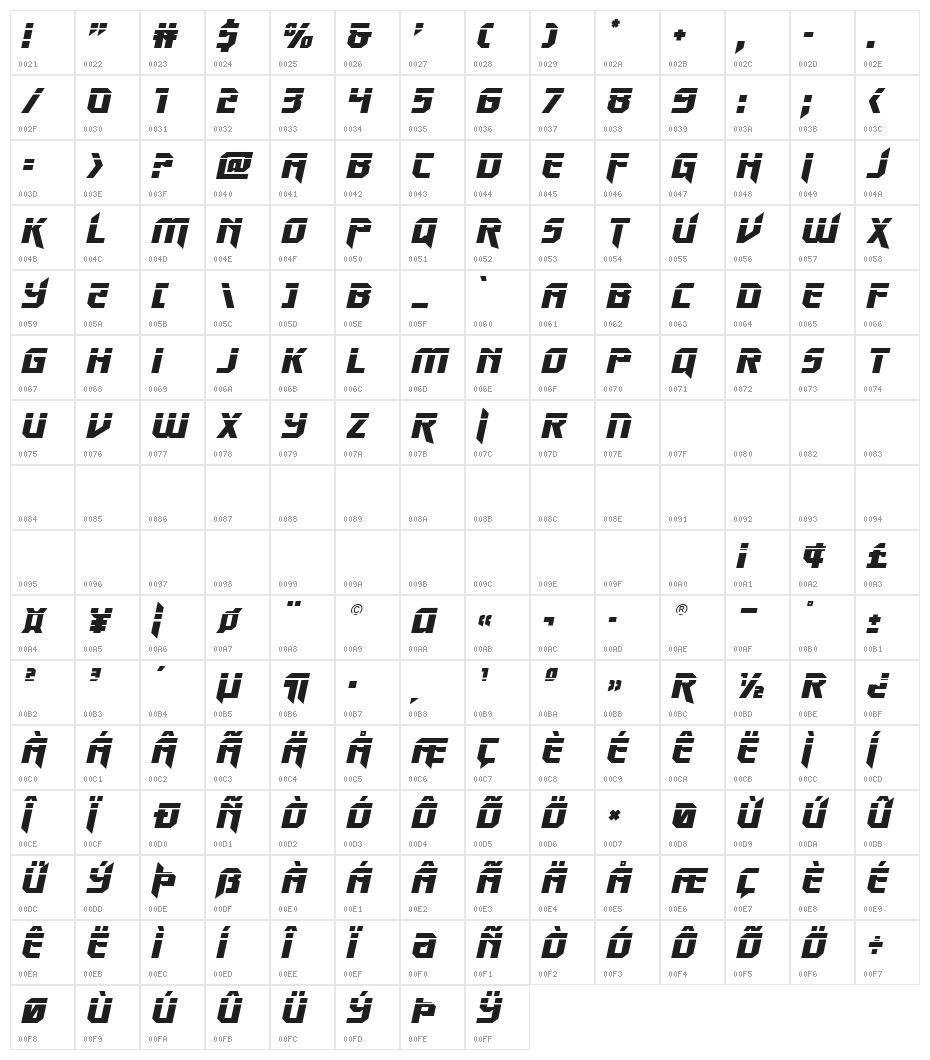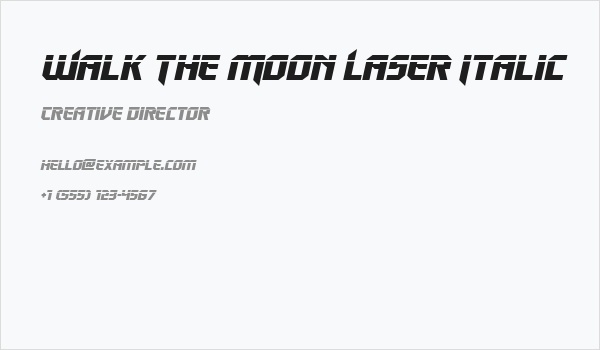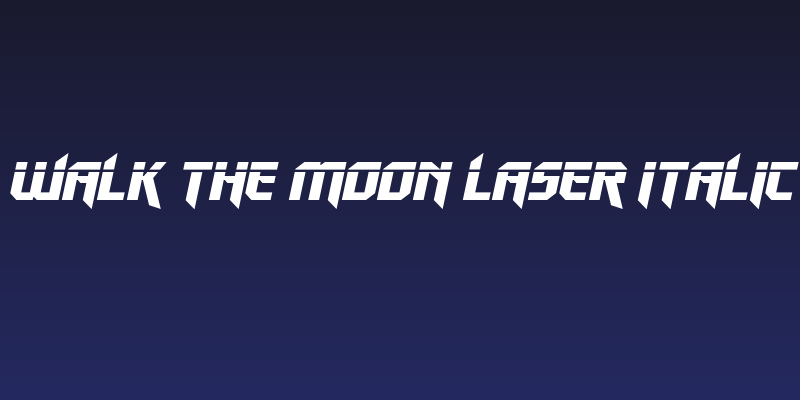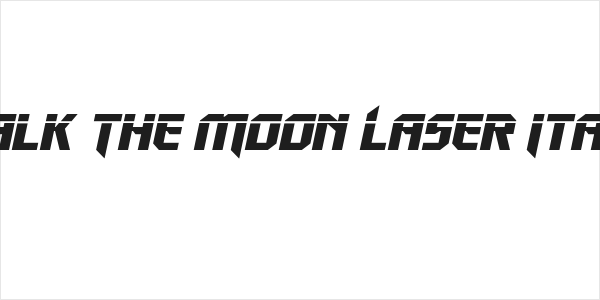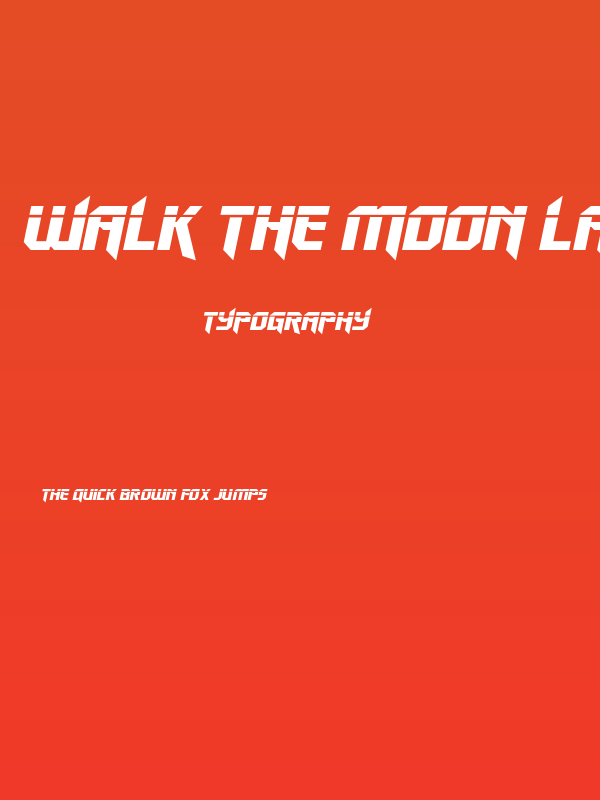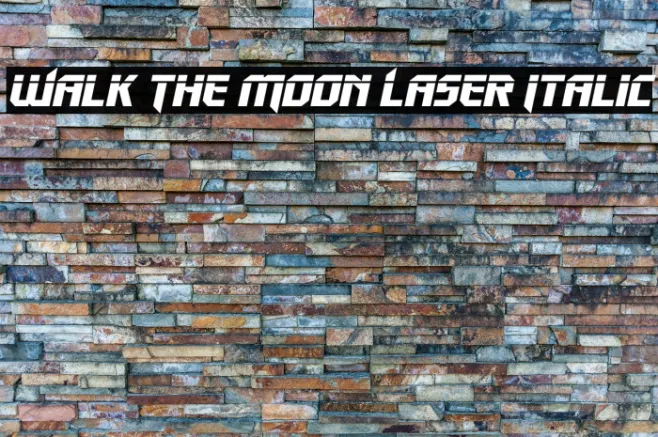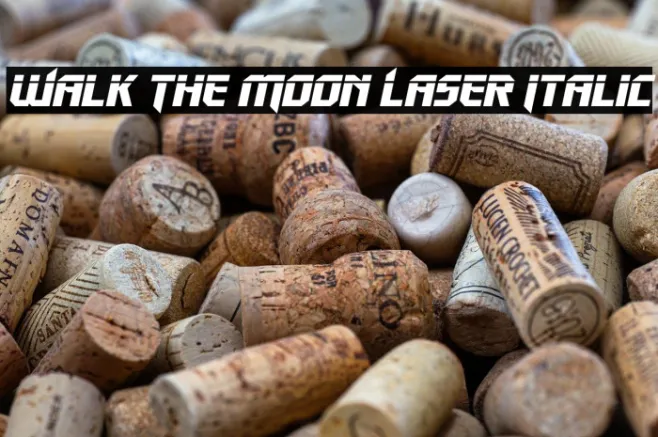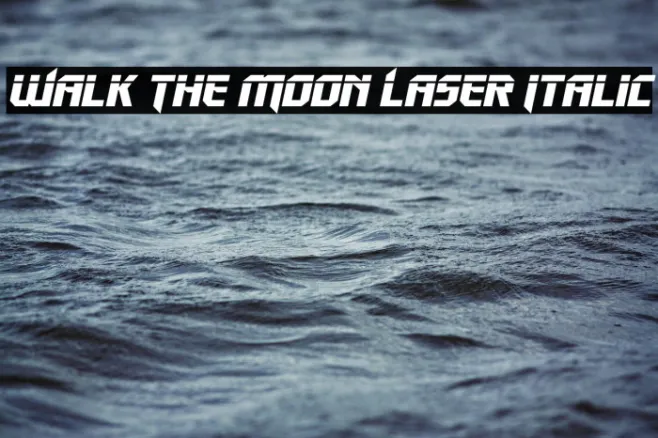
Walk The Moon Laser Italic Font
Walk The Moon Laser Italic Description
This font features a bold, angular design with a futuristic and dynamic appearance. The characters are sharply cut with a distinct slant, giving a sense of movement and speed. The uppercase and lowercase letters share a consistent geometric style, with strong diagonal lines and pointed edges. Numbers and special characters maintain the same bold and angular aesthetic, ensuring uniformity across all glyphs. The font's unique style makes it stand out, ideal for projects that require a modern and edgy look.
| Proposed Projects | Ideal for sci-fi themed designs, video game graphics, posters, and branding that requires a modern, edgy look. |